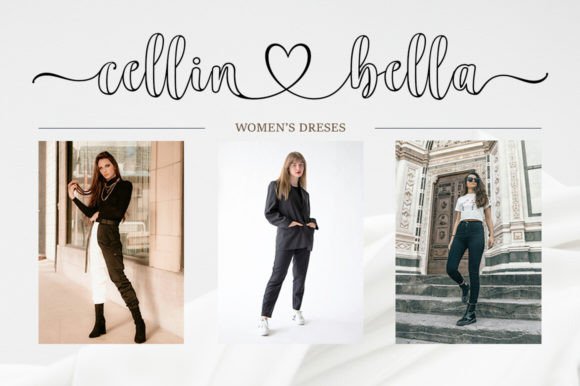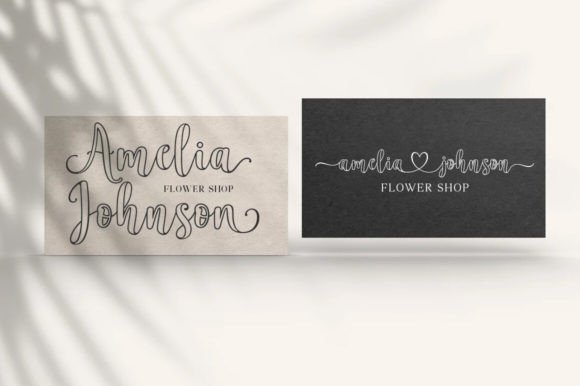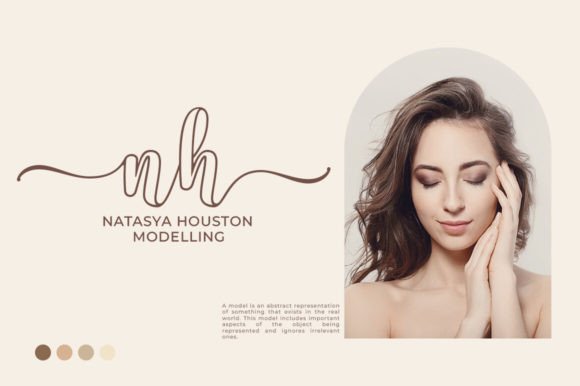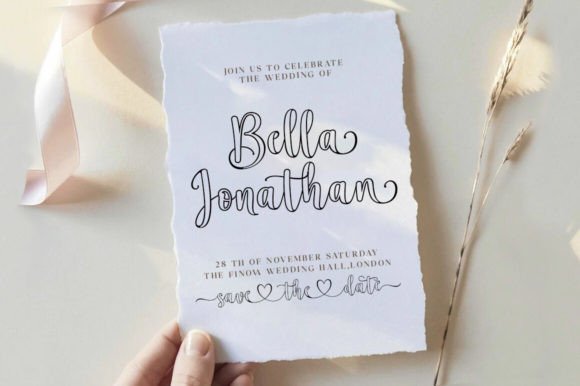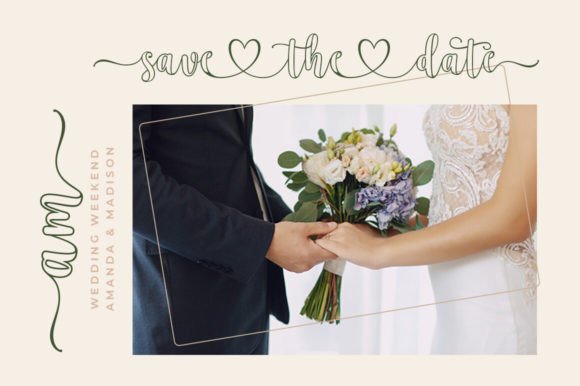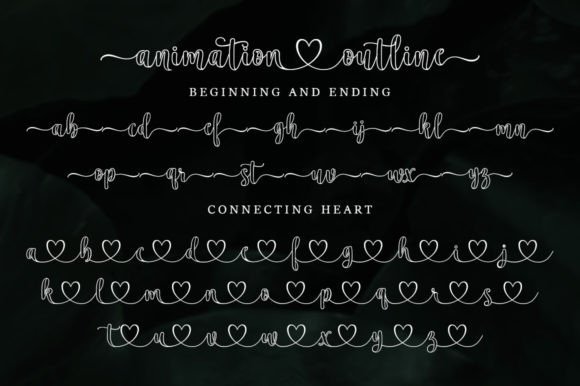
Introducing Animation Outline Font: Elevate Your Designs with Elegance
In the world of design, fonts play a pivotal role in conveying the intended message and aesthetic of a project. For those seeking a touch of elegance and sophistication, the Animation Outline Font is a stellar choice. This stylish and incredibly elegant script font is perfect for designers and crafters looking to add a handwritten touch to their creations. Whether it’s wedding invitations, thank you cards, quotes, greeting cards, logos, business cards, or any other design that requires a personal and refined feel, Animation Outline Font stands out as a versatile and beautiful option.
The Essence of Animation Outline Font
Animation Outline Font is characterized by its fluid strokes and graceful lines, which lend a luxurious and bespoke feel to any design. The font’s outline style adds a unique dimension, allowing for creative versatility and the ability to blend seamlessly with various backgrounds and design elements. Its elegance is not just in its appearance but also in its application, making it suitable for a wide range of projects that demand a high level of sophistication.
Weddings and special events are occasions where elegance and personalization shine. Animation Outline Font is exceptionally well-suited for such designs. Its refined and classy appearance makes it an ideal choice for:
- Wedding invitations: Setting the tone for a sophisticated and memorable event.
- Thank you cards: Adding a personal and heartfelt touch to expressions of gratitude.
- Quotes and greeting cards: Infusing inspiration and warmth with elegant typography.
This font helps in creating a cohesive and luxurious aesthetic that guests will cherish.
Ideal for Branding and Marketing Materials
Beyond event designs, Animation Outline Font also proves to be a valuable asset for branding and marketing materials. Its unique and stylish appearance can help businesses stand out in a crowded market. For:
- Logos: Crafting a distinctive and memorable brand identity.
- Business cards: Conveying professionalism and attention to detail.
- Social media graphics and advertisements: Elevating visual content with refined typography.
The font’s elegance can enhance brand perception and contribute to a sophisticated visual strategy.
Tips for Using Animation Outline Font
To maximize the potential of Animation Outline Font, consider the following tips:
- Pair with Simplicity: Let the font be the focal point by pairing it with simple backgrounds or design elements.
- Experiment with Colors: While the font’s elegance shines in black and white, experimenting with colors can add a modern twist.
- Play with Sizes: Utilize varying font sizes to create visual hierarchy and emphasize key messages.
- Combine with Other Fonts: For added versatility, combine Animation Outline Font with complementary fonts to enhance readability and aesthetic appeal.
Animation Outline Font is a versatile and elegant script font that can elevate a wide range of design projects. Its stylish and sophisticated appearance makes it an excellent choice for designers and crafters aiming to add a personal and refined touch to their work. Whether for weddings, branding, or personal projects, Animation Outline Font is a valuable tool in the quest for design excellence.
With its fluid strokes, graceful lines, and unique outline style, Animation Outline Font is poised to become a go-to choice for those seeking to infuse their designs with elegance and sophistication. Explore its potential and discover how it can transform your designs into memorable and impactful creations.